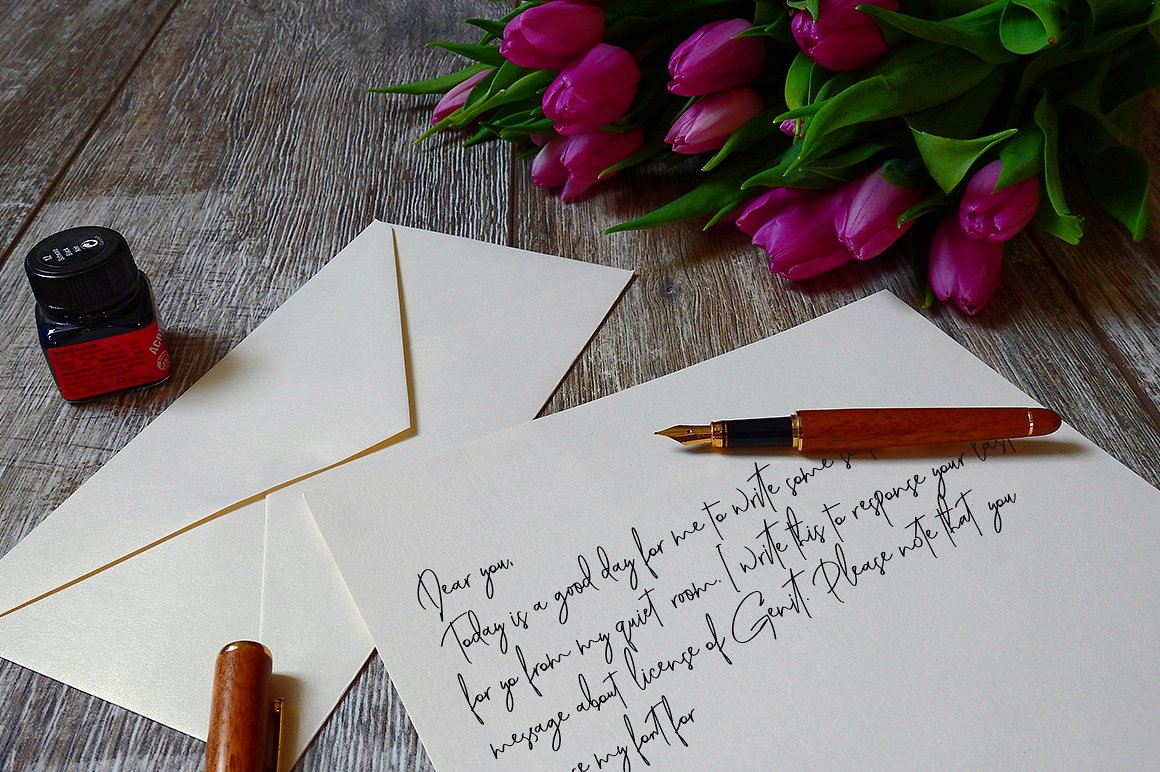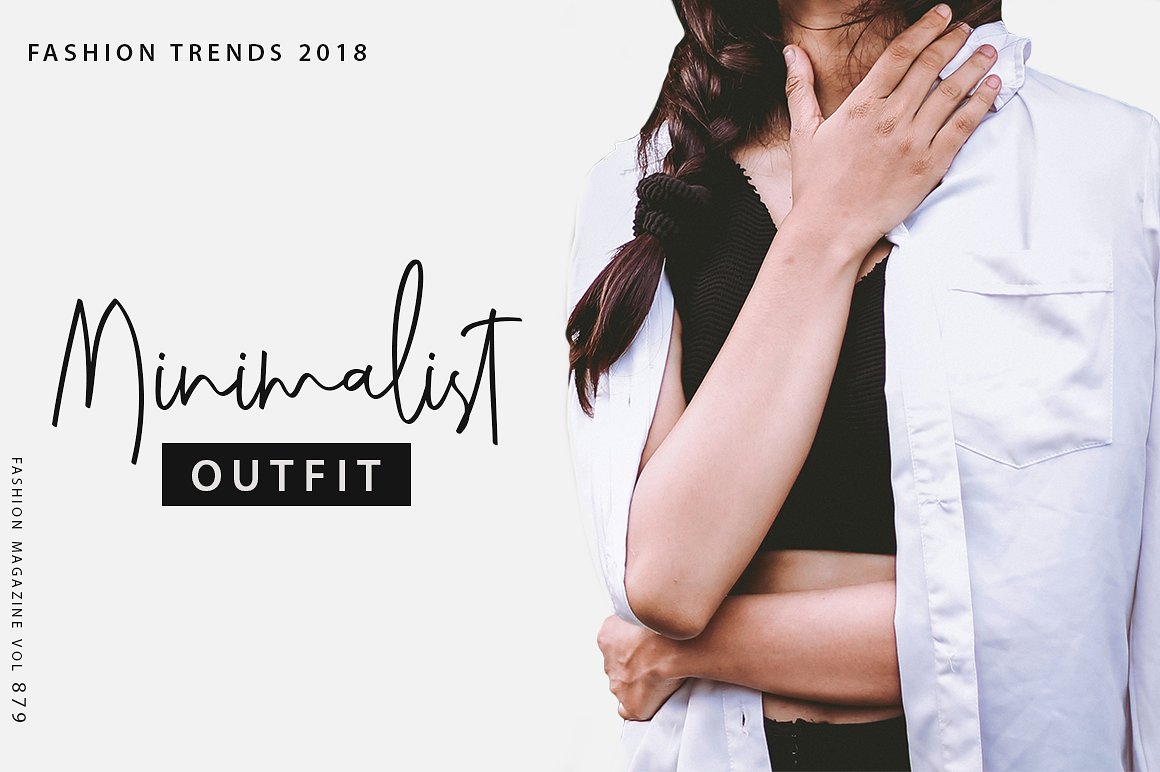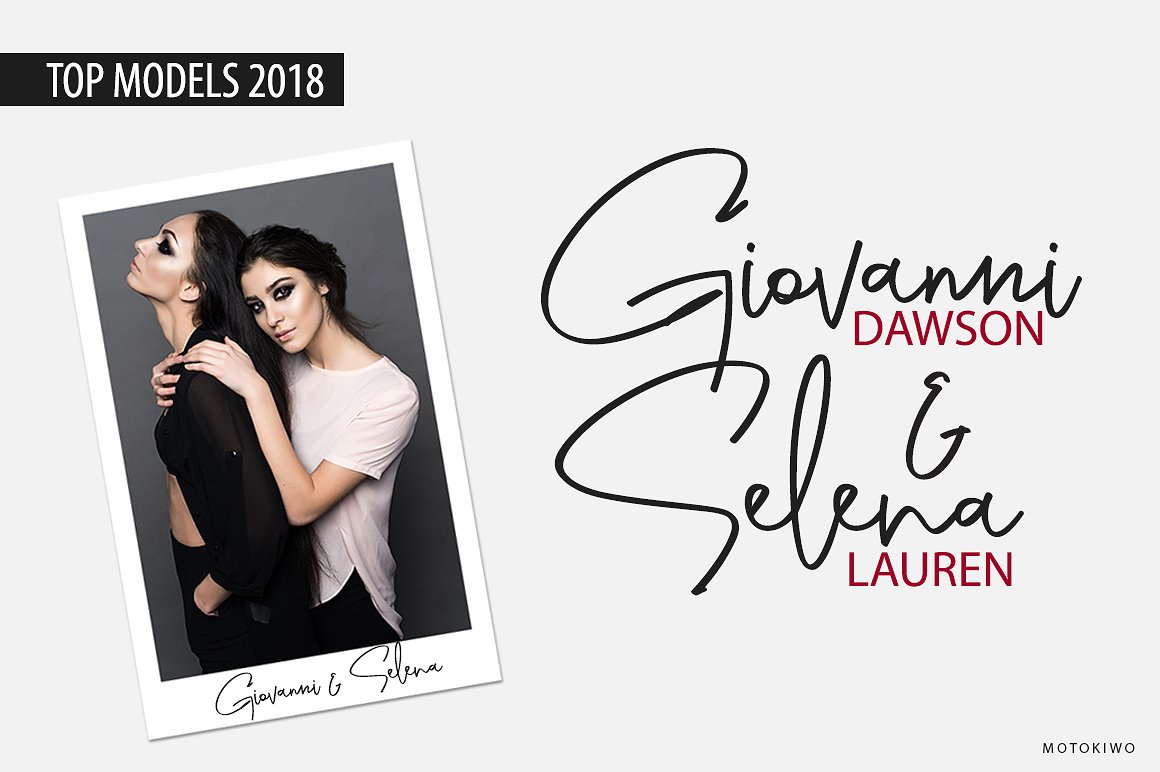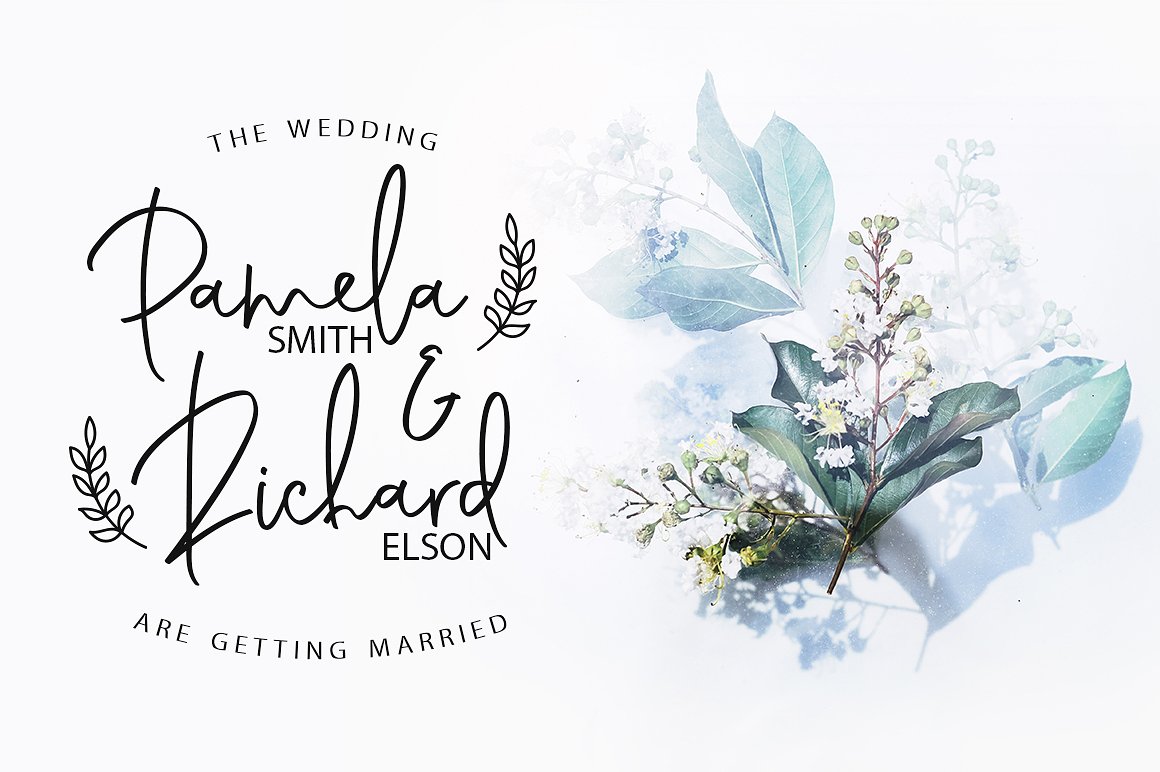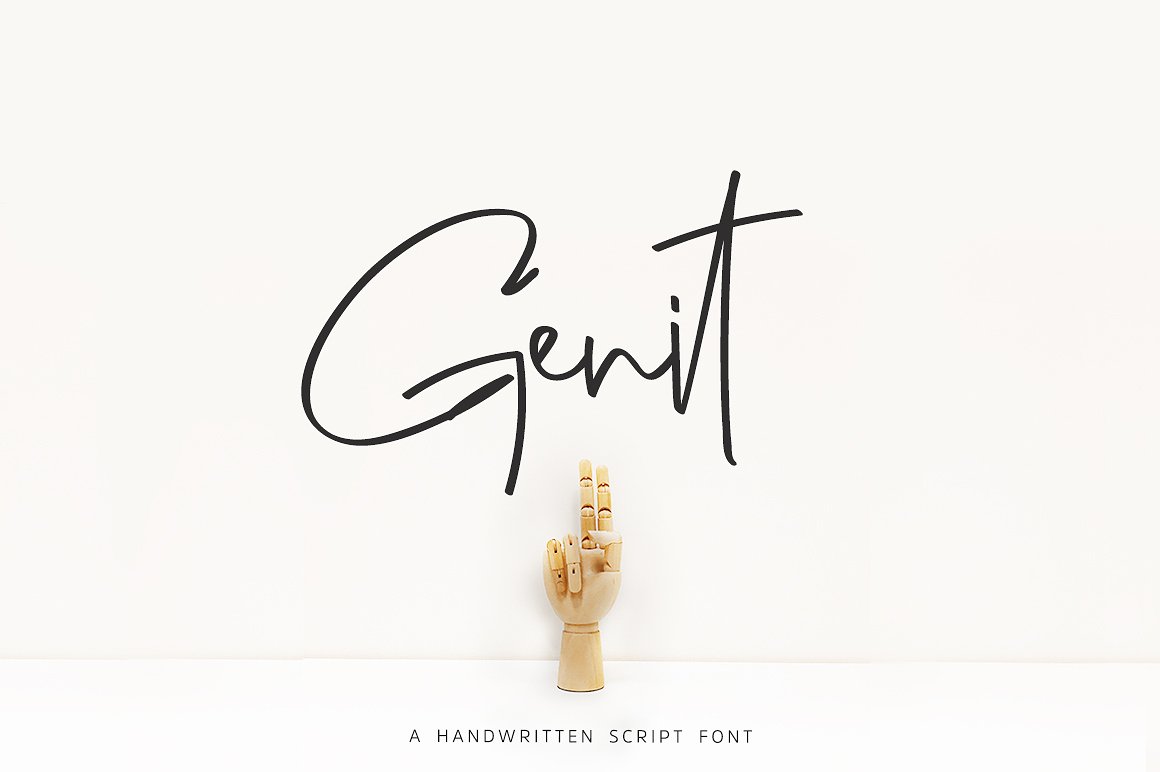
Genit Classy Handwritten Font
A modern handmade script font, for everything modern with a bit of handmade touch. Introducing Genit Font. Genit is classy, elegant, modern, and natural handwritten script font. Genit was made to handle every minimalist design projects.It is perfect for your flyers, branding, packaging, social media posts or logos – for everything modern with a bit of handmade touch.